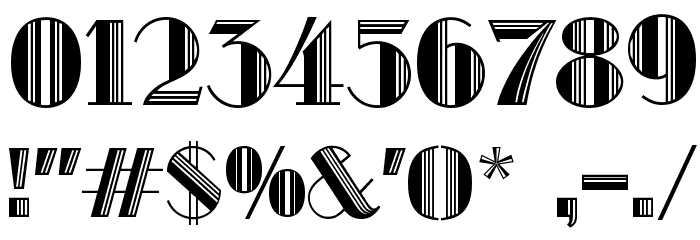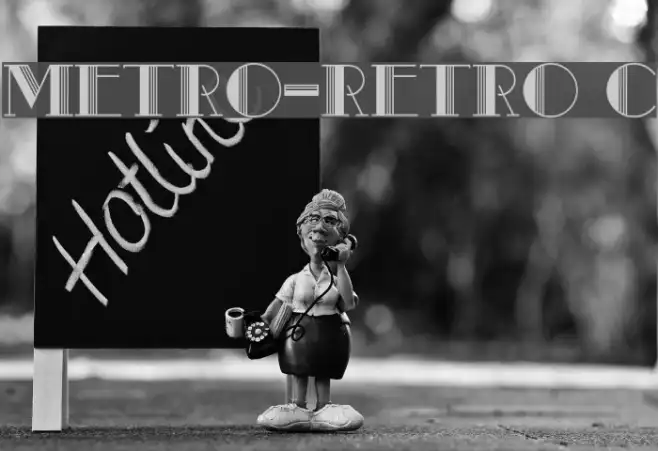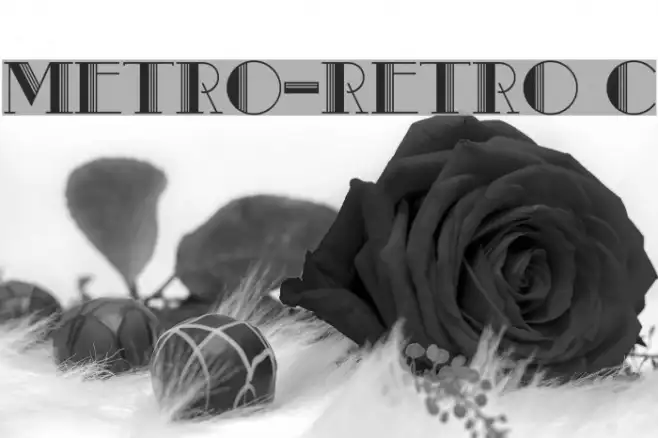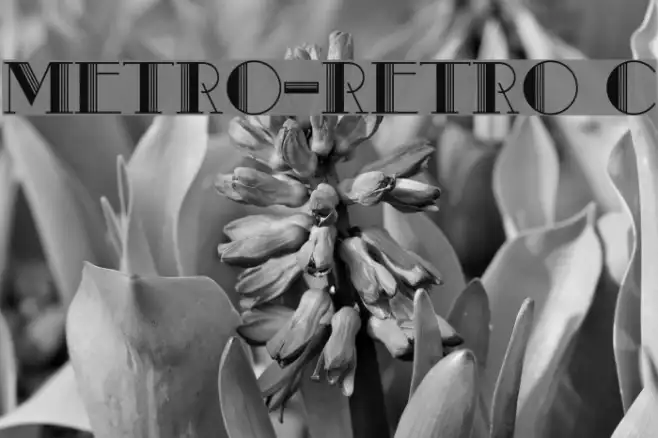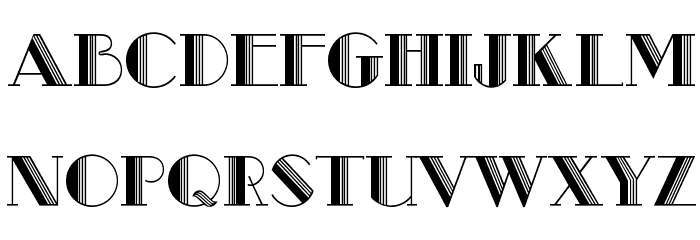
Metro-Retro C Font
✎ Art Deco
Metro-Retro C Description
This font features a bold and striking design with a retro flair. Each character is crafted with vertical stripes that create a sense of movement and energy. The uppercase letters are particularly eye-catching, with their geometric shapes and clean lines. The numbers and special characters maintain the same aesthetic, ensuring consistency across all text. This font is ideal for projects that require a vintage or art deco feel, making it perfect for posters, branding, and headlines. Its unique style is sure to capture attention and add a touch of elegance to any design.
| Overall Style | Vintage |
| Proposed Projects | Ideal for vintage posters, branding, headlines, and art deco themed designs. |